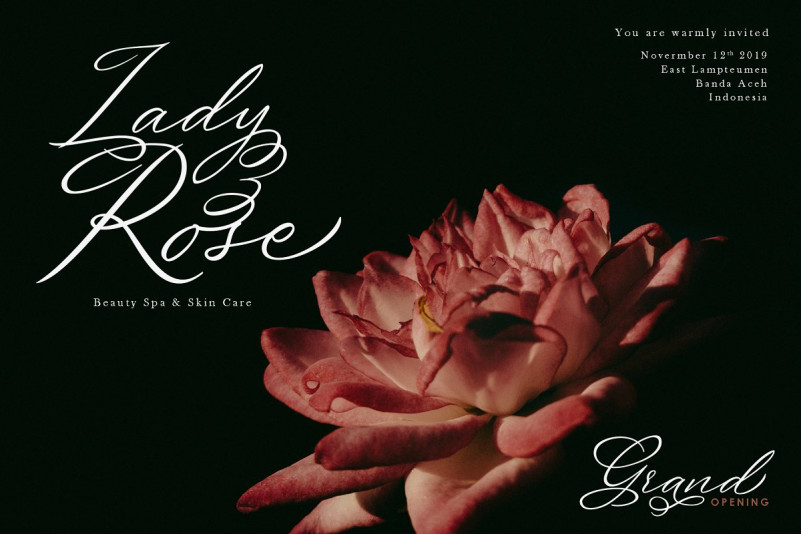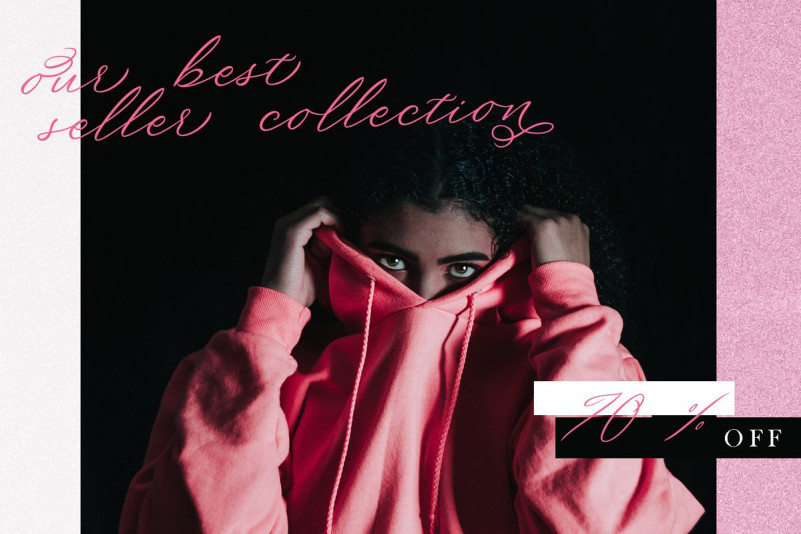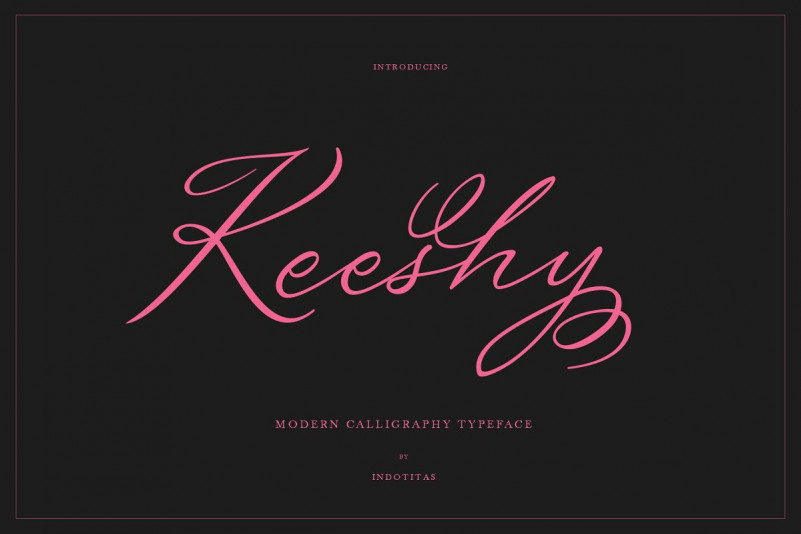
Keeshy Font
Inspired by modern and stylish calligraphy, perfect for many different project such as logos & branding, invitation, stationery, wedding designs, social media posts, advertisements, product packaging, product designs, label, photography, watermark